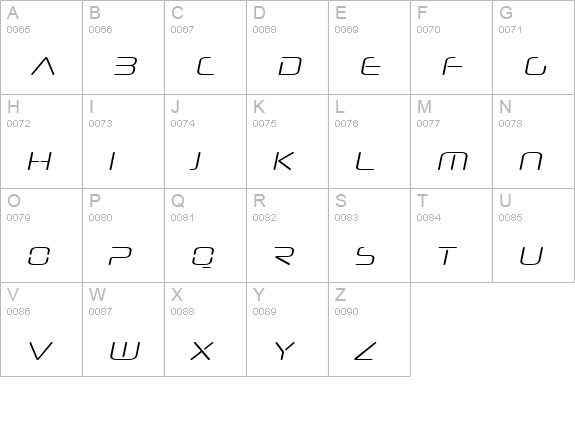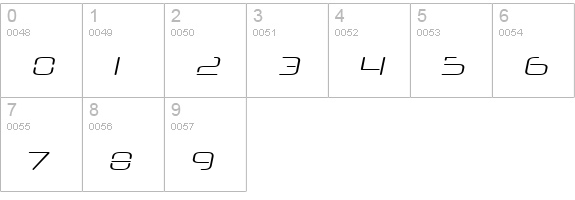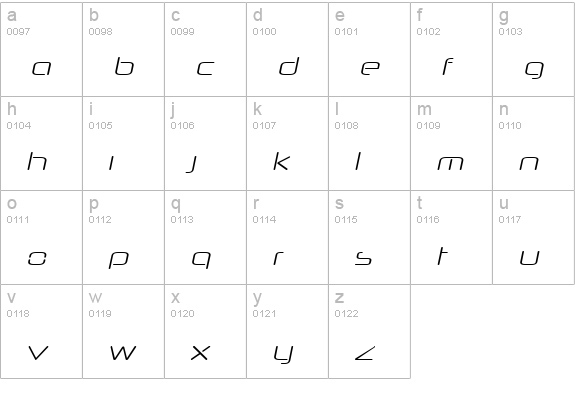
Neuropol Nova Xp Lt Italic Font Details
Neuropol Nova Xp Lt Italic is a distinctive, italic variant in the Neuropol typeface family \xE2\x80\x94 well suited to design and typography projects.
Neuropol Nova Xp Lt Italic font is a sleek and modern typeface perfect for giving your designs a futuristic edge. With its clean lines and unique curves, this font exudes a sense of sophistication and innovation. The italic style adds a touch of elegance and dynamism to any project, making it ideal for headlines, branding, and creative projects. And the best part? Neuropol Nova Xp Lt Italic font is available for free download at FontsMarket.com! This means you can easily access and use this stunning font in your designs without any cost. Don't miss out on the opportunity to enhance your projects with this eye-catching and versatile typeface. Download Neuropol Nova Xp Lt Italic font today and elevate your design game!